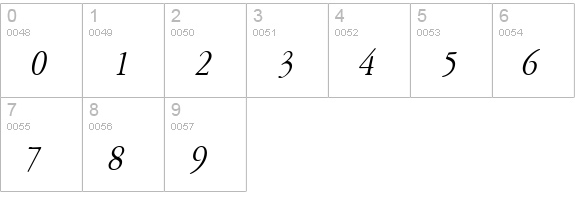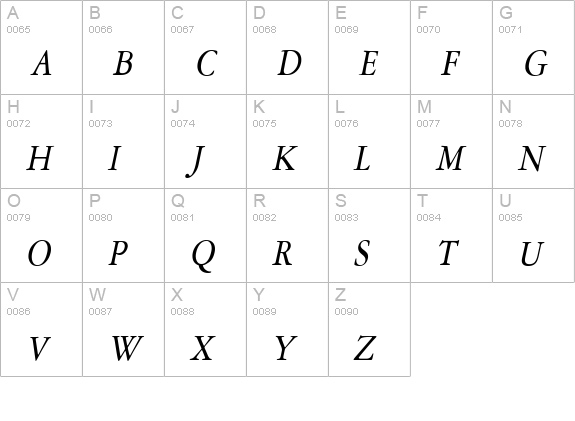
Amery Thin Italic is a delicate, low-contrast, italic variant in the Amery typeface family \xE2\x80\x94 well suited to fashion editorial, minimal branding, and high-contrast display.
Amery Thin Italic is a sleek and stylish font that exudes elegance and sophistication. The slender, slanted design of the italicized characters adds a touch of modernity to any project, making it perfect for creating a sense of refinement and luxury. The delicate curves and precise lines of Amery Thin Italic give it a unique and eye-catching appearance that is sure to impress. What makes Amery Thin Italic even more appealing is that it is completely free to download at FontsMarket.com. This means you can easily add this stunning font to your collection without having to worry about any extra costs. Whether you're working on a design project, creating marketing materials, or just looking to add a touch of flair to your personal projects, Amery Thin Italic is a fantastic choice that won't break the bank. Download it today and elevate your designs with this beautiful and versatile font.